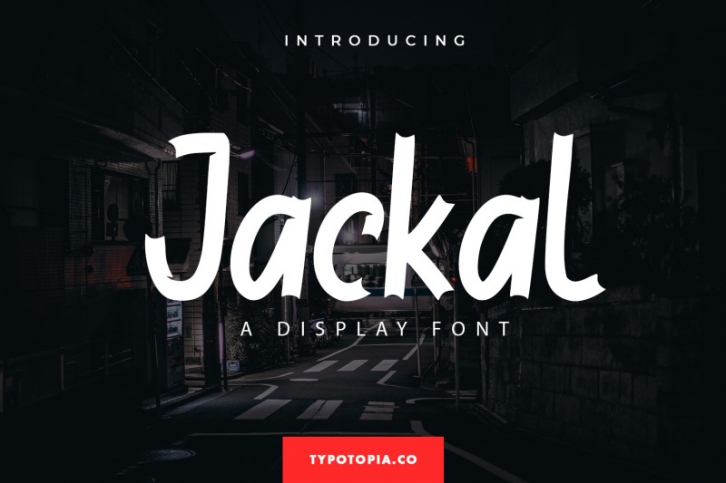
Introducing, Jackal a unique Blackletter Font for your Design
Jackal is a unique Blackletter Font for your Design that is absolutely great for your next creative project such as logos, printed quotes, invitations, cards, product packaging, headers, Logotype, Letterhead, Poster, Apparel Design, Label, and etc.
This Versatile Font includes also support a Multilingual Characters. Making this Font a Swiss Army knife in your Font Library. It's extremely fun to use as each word can be transformed to your liking.
Uppercase & Lowercase letters
Numbering and Punctuations
Multilingual Support